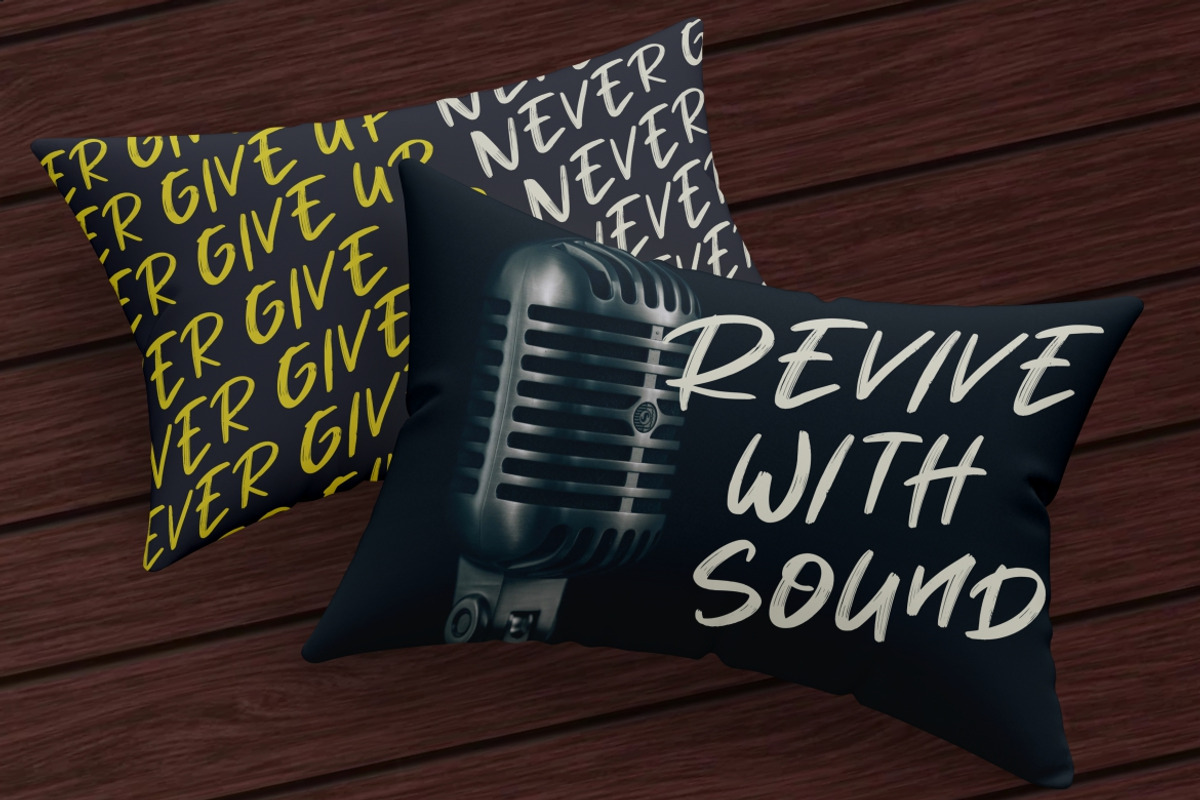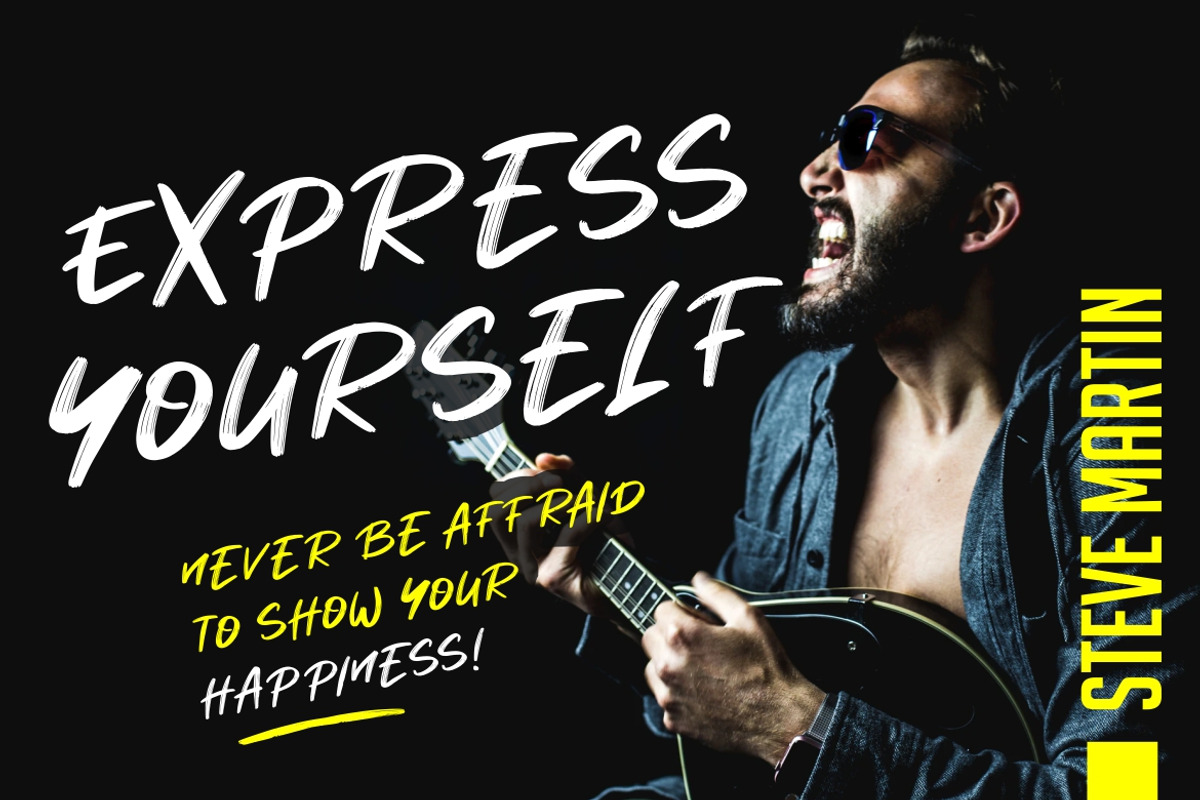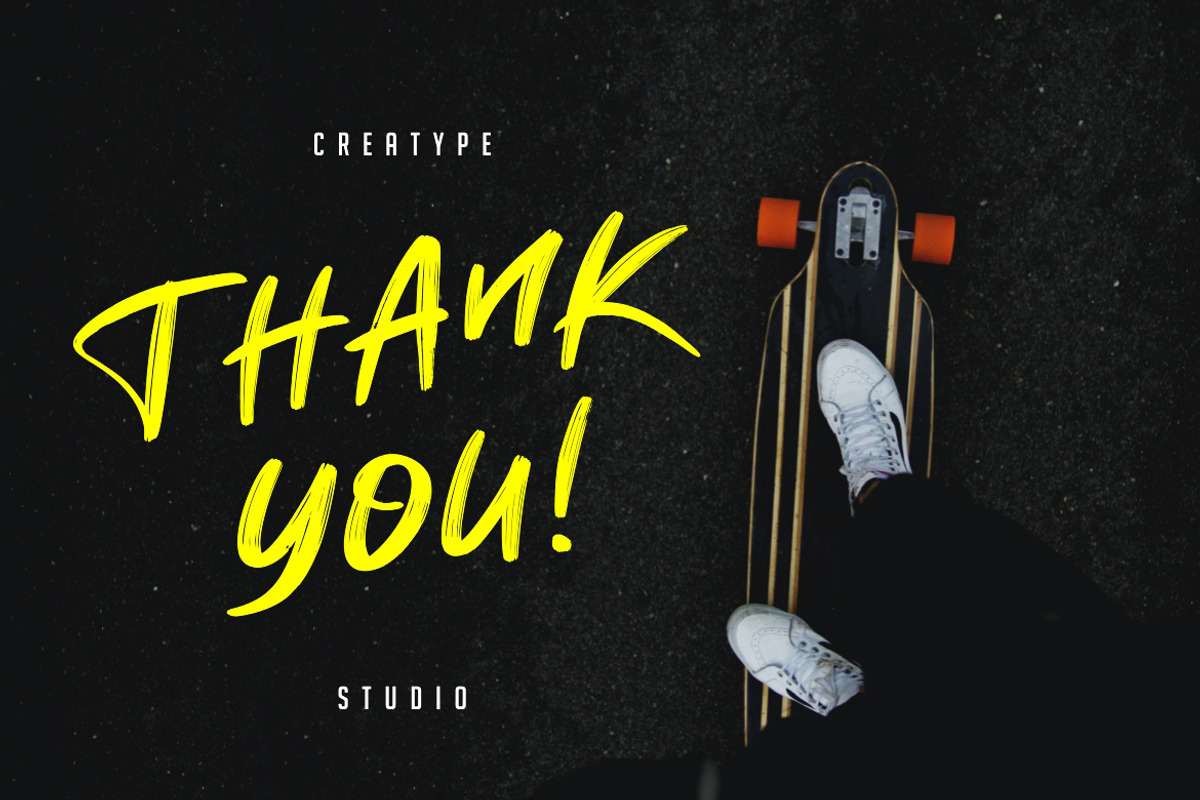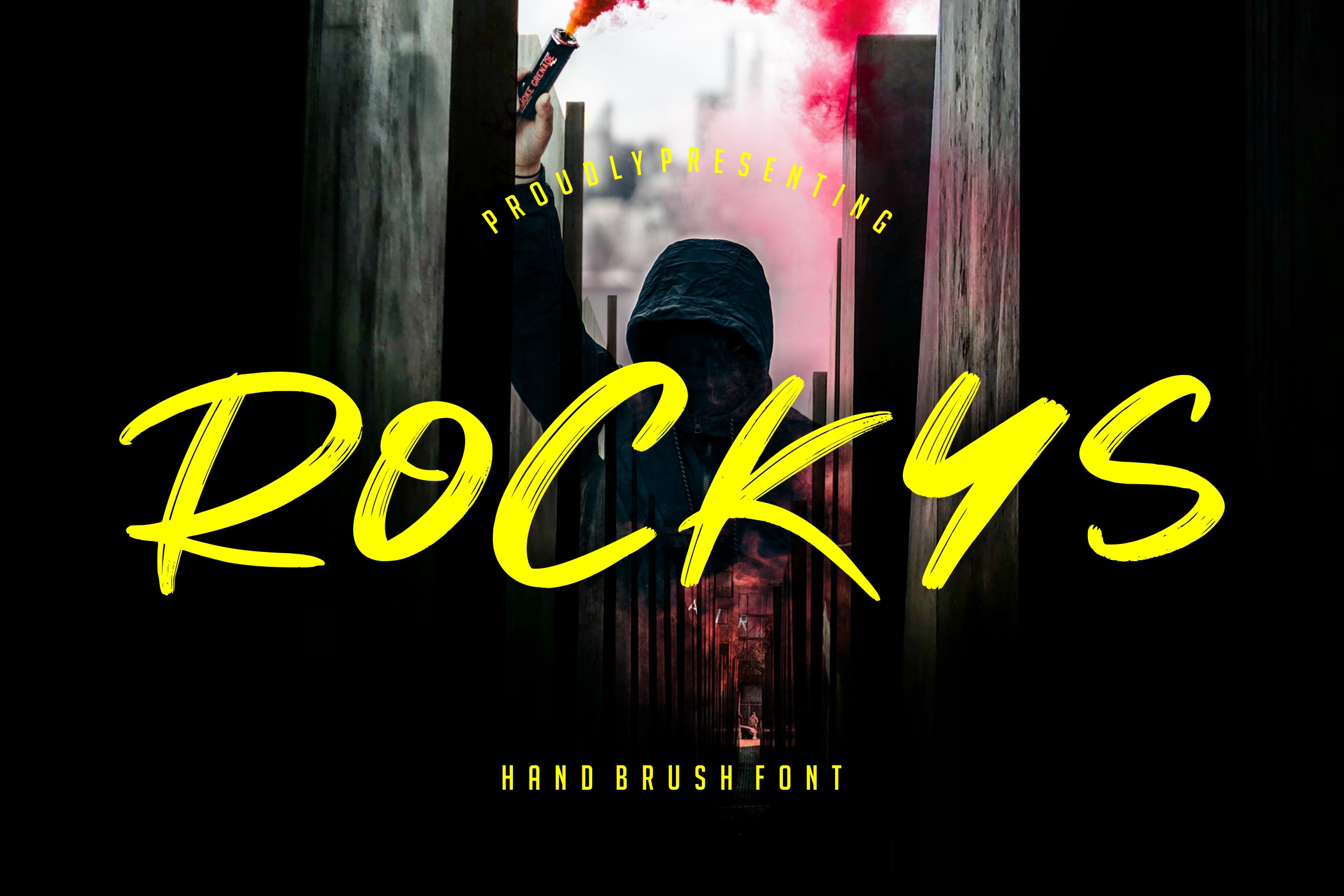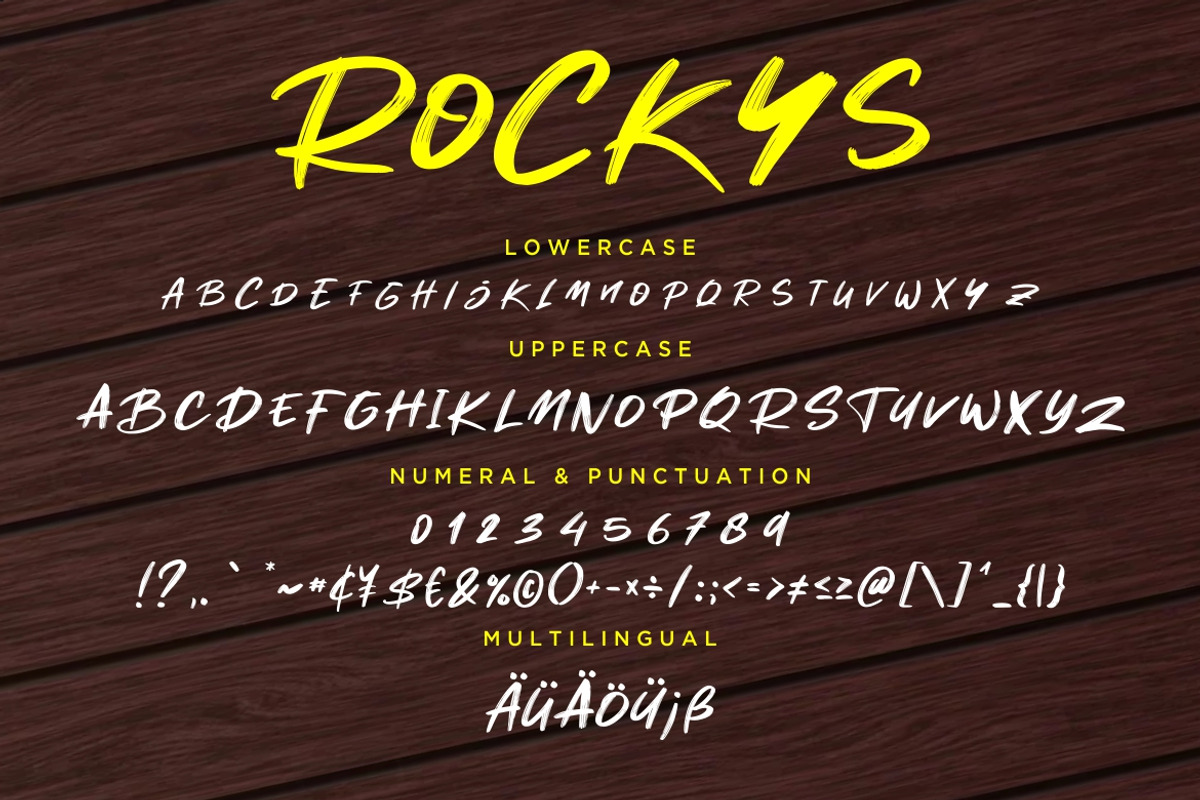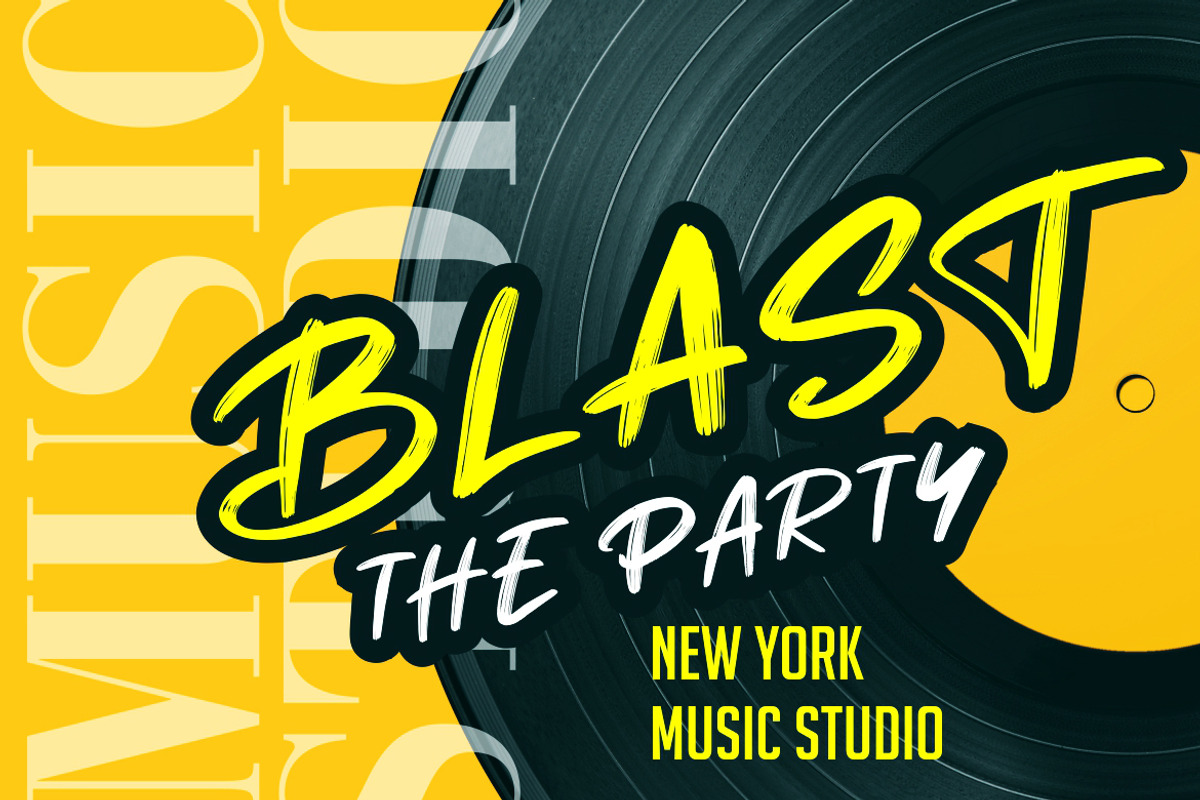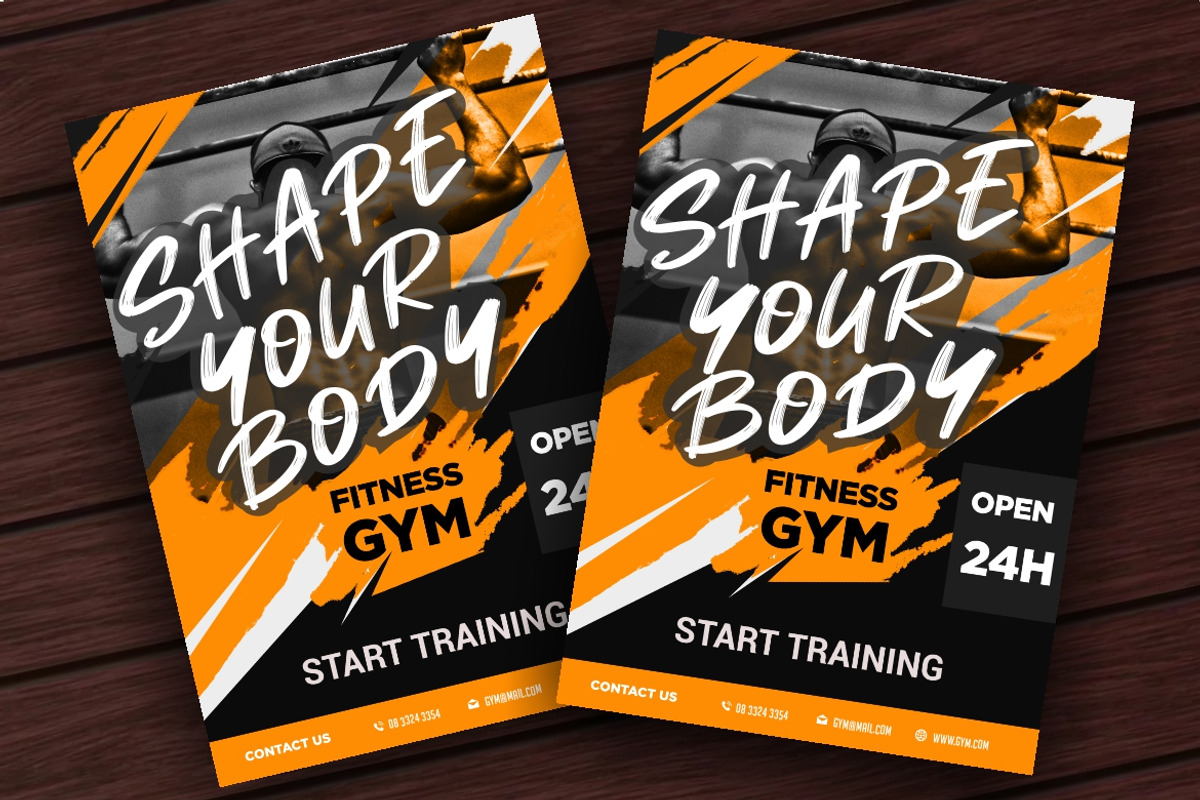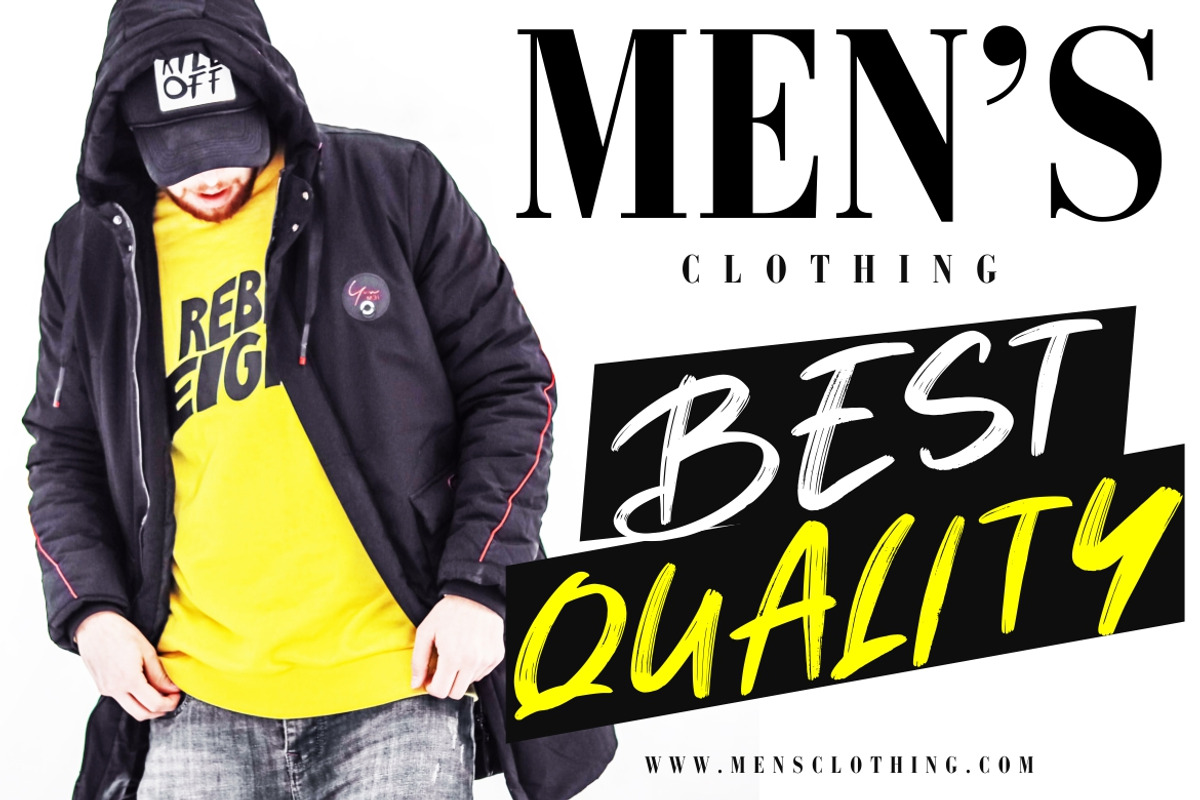
Rockys Handbrush Business Font
Rockys is handbrush script font with bold and natural looking style with ligature supporting to make your projects look truly authentic.
Rockys is perfect for branding projects, logo, wedding designs, social media posts, advertisements, product packaging, product designs, label, photography, watermark, invitation, stationery and any projects that need handwriting taste.
- Fonts include multilingual support for; ä ö ü Ä Ö Ü ß ¿ ¡